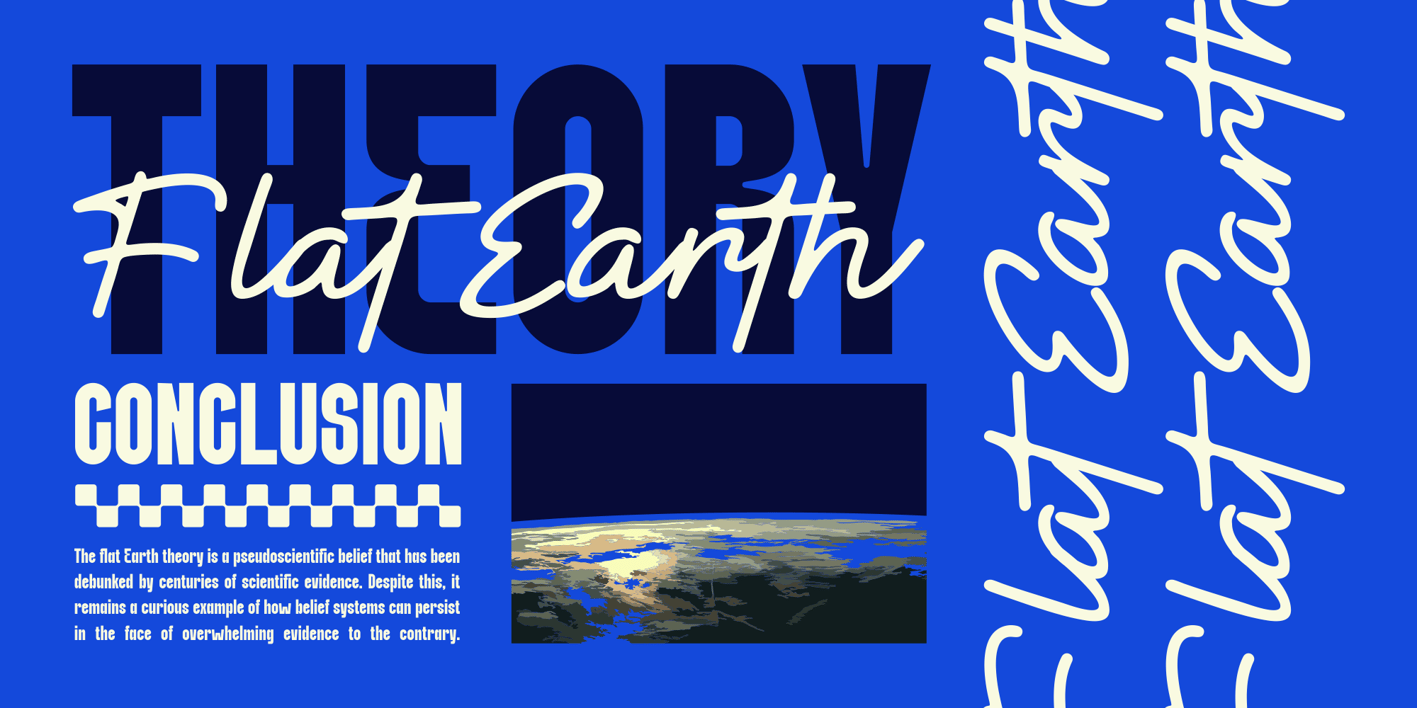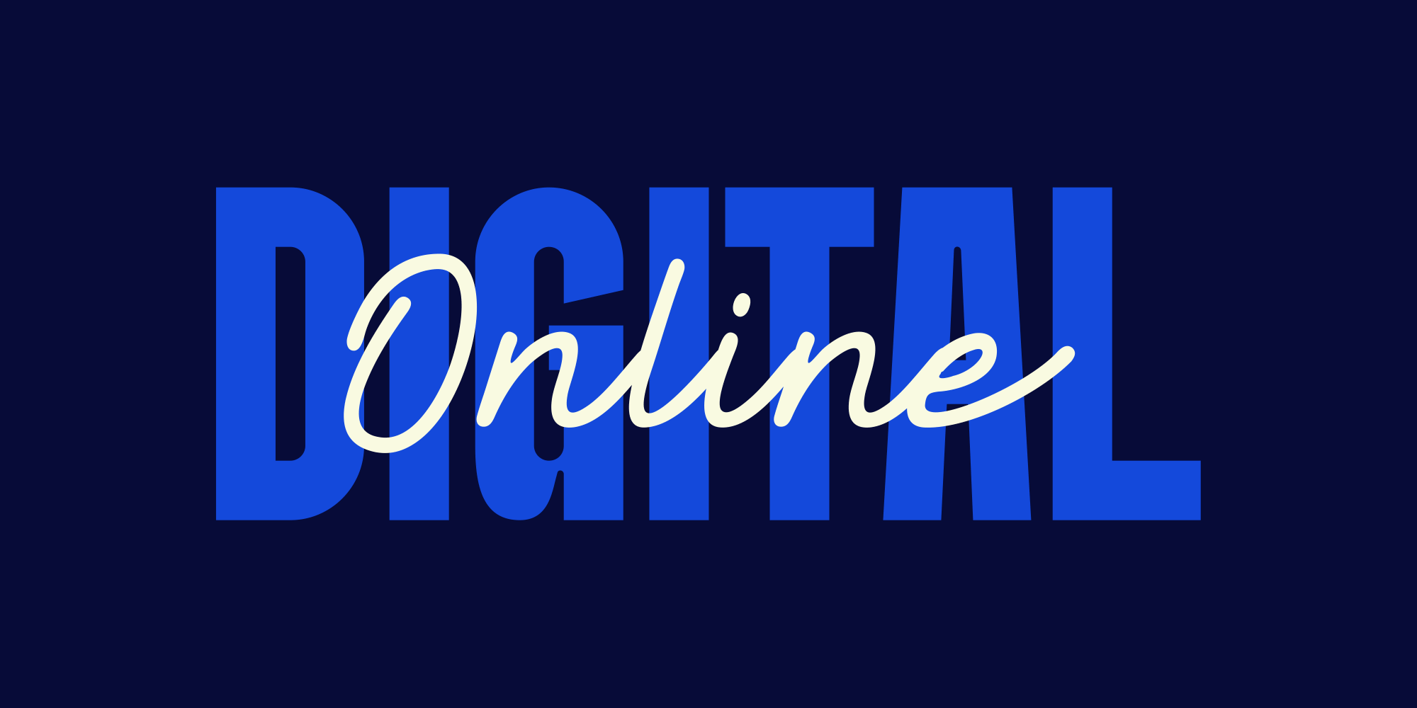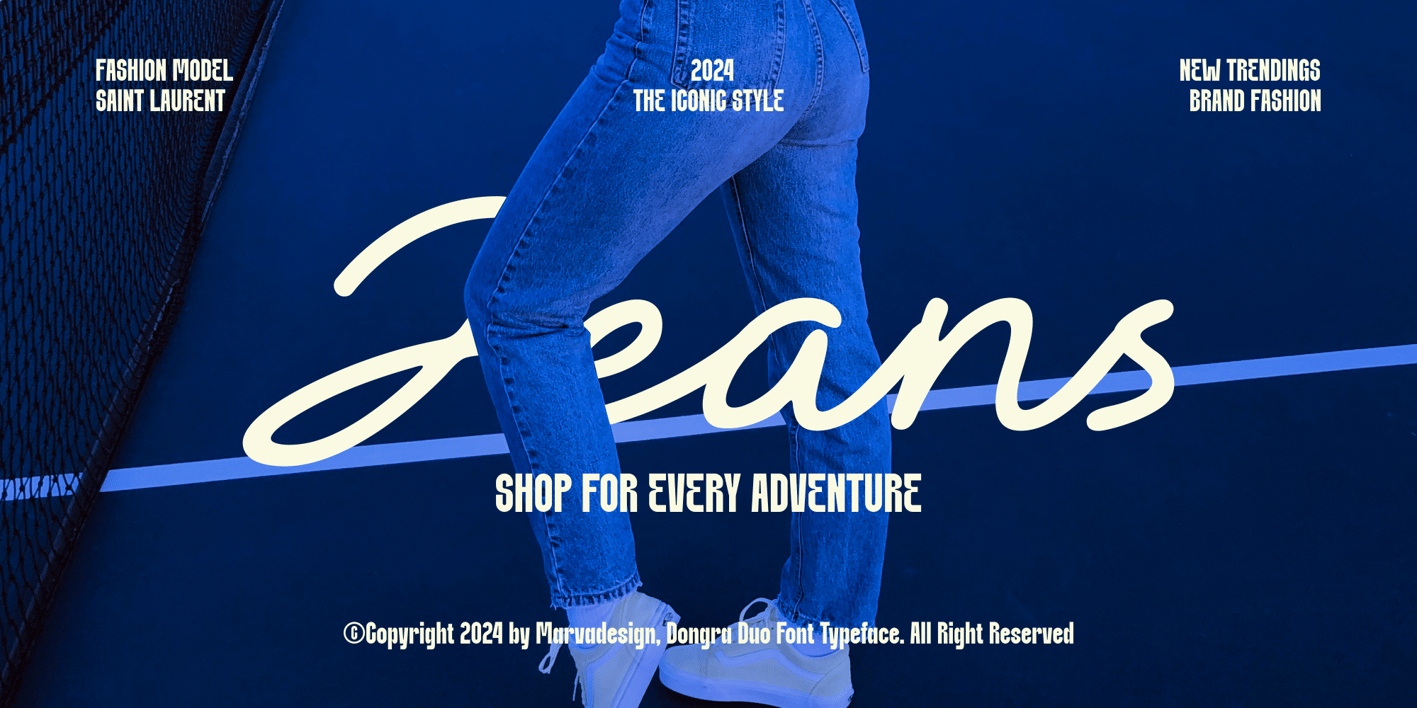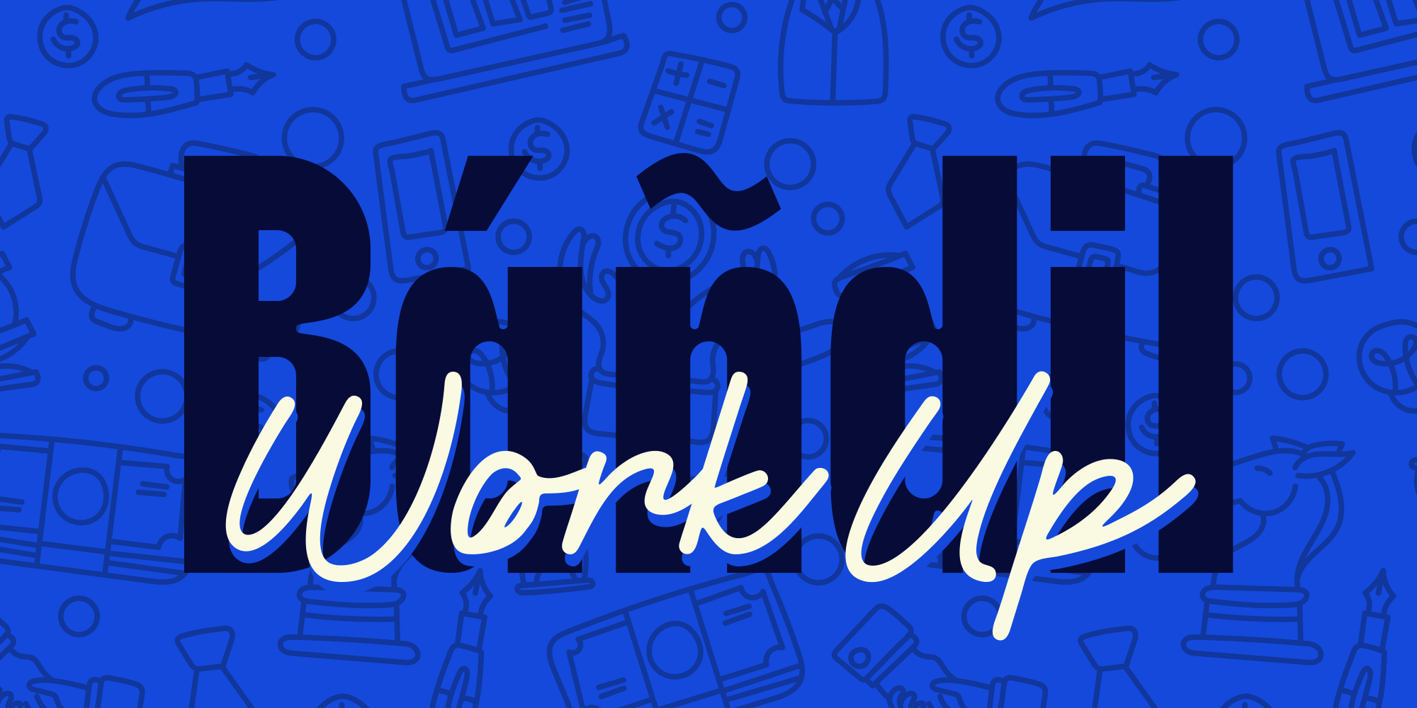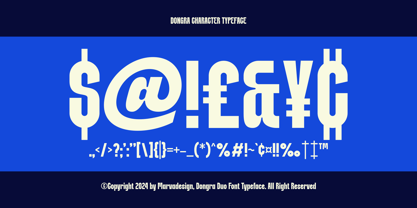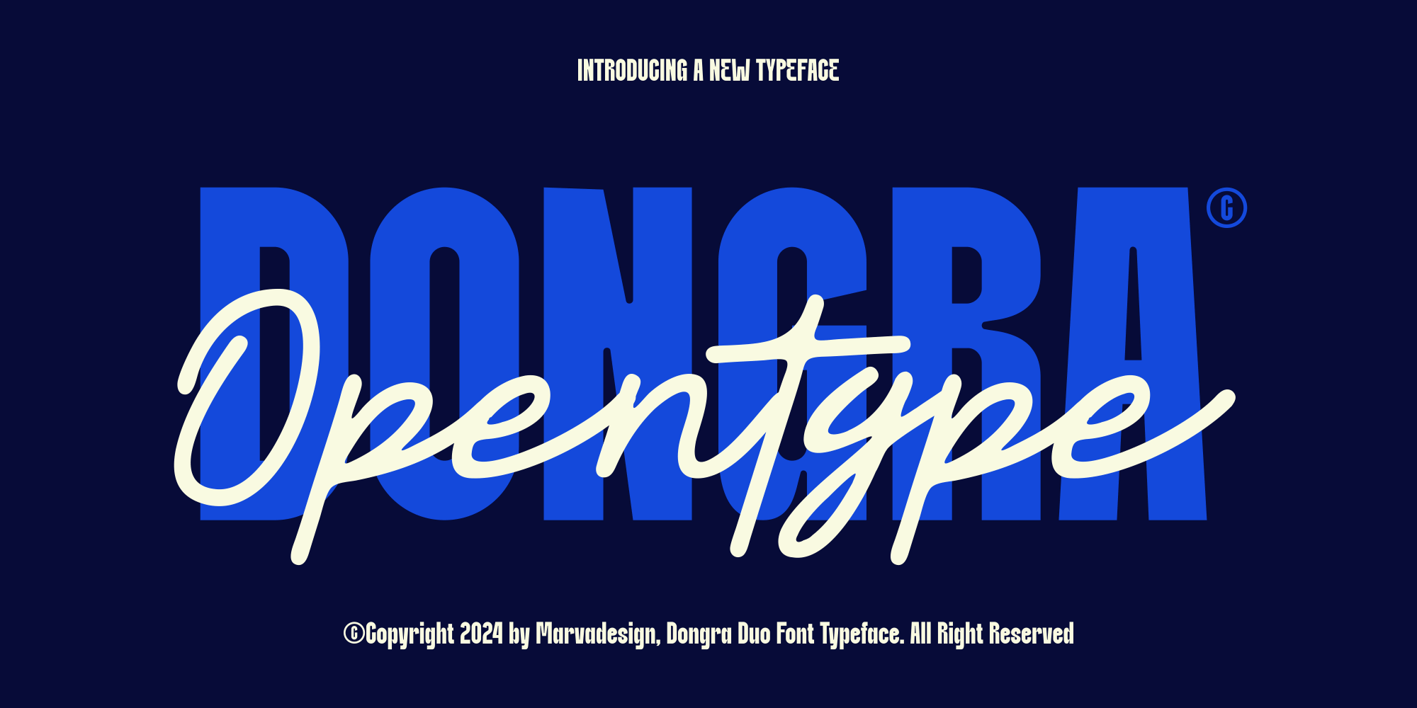
Dongra Font
Introducing New Typeface Dongra is a versatile and unique typeface that comes in two distinct styles: Condensed and Script. Each style brings its own flavor and character, catering to various design needs and preferences.